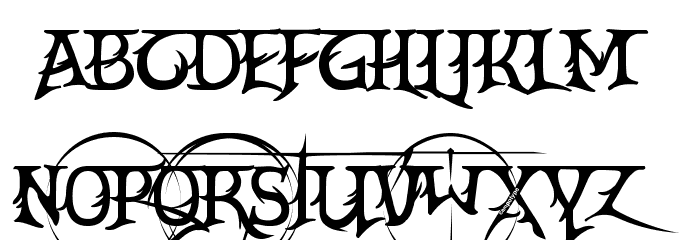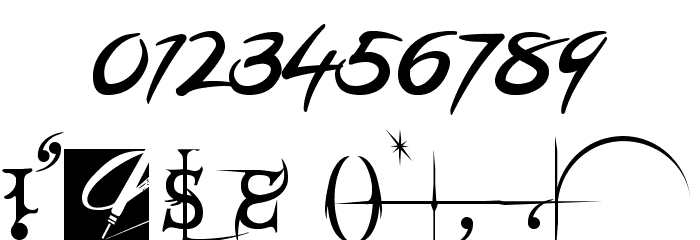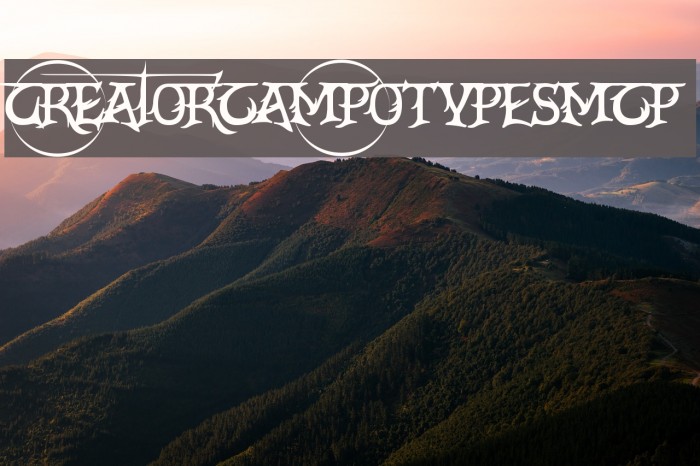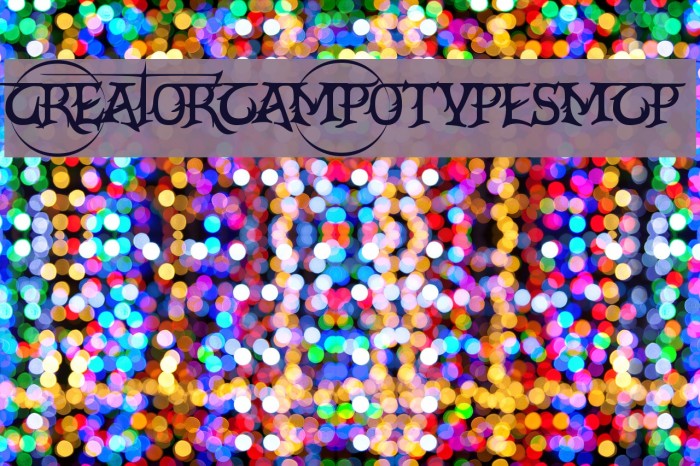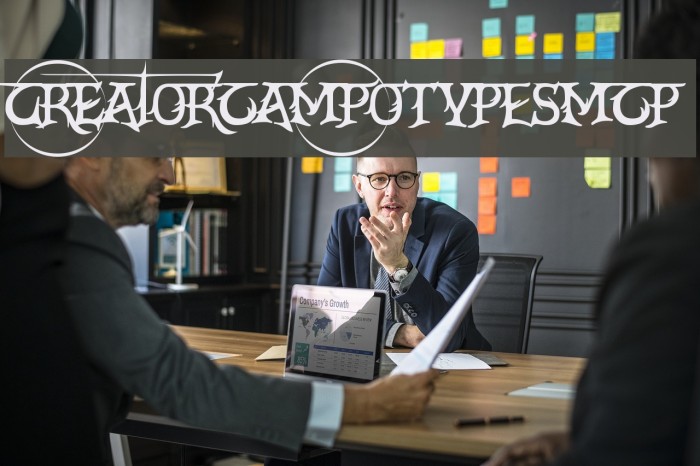
CrEAtoRcAmpoTYPeSmcP Font
This font exhibits a bold and dramatic style with sharp, angular edges and intricate detailing. The uppercase letters are particularly striking, featuring elongated serifs and unique flourishes that give each character a distinct personality. The lowercase letters maintain the same boldness, with a slightly more condensed form. Numbers are consistent with the overall aesthetic, ensuring a cohesive look across all characters. Special characters are creatively designed, adding to the font's decorative appeal. The overall design is reminiscent of gothic or medieval styles, making it suitable for projects that require a touch of historical or fantasy elements.
A bold, gothic-inspired font with sharp, angular edges and intricate detailing.
- Proposed Projects: Ideal for fantasy-themed designs, book covers, posters, and branding that requires a dramatic and historical touch.
- Overall Style: Gothic, Medieval